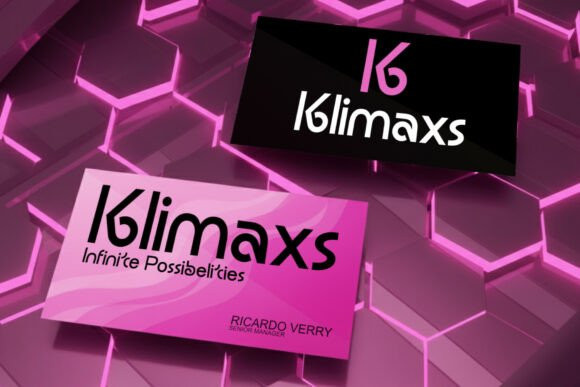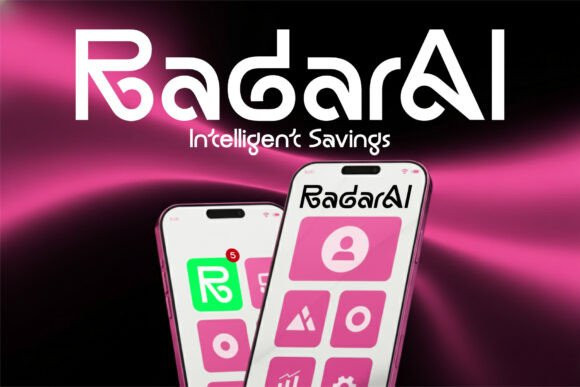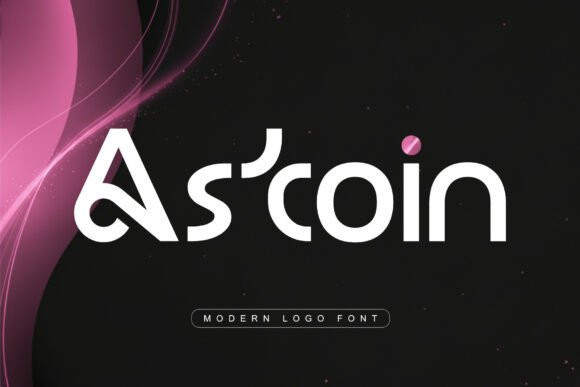
Astoin Font
Astoin Font is a futuristic modern logo font that combines geometric precision with sleek minimalism. Every curve and line in Astoin is crafted to represent innovation, technology, and digital sophistication making it perfect for modern branding and tech-forward designs.
With its distinctive letterforms and smooth futuristic flow, Astoin is ideal for AI technology, crypto projects, architecture firms, startups, and digital branding. This font exudes confidence and modern elegance, helping your brand stand out with a strong visual identity.